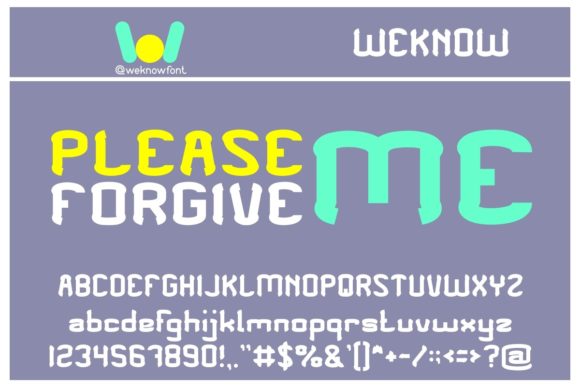
Introducing the Please Forgive Me Font-A Redemption Masterpiece for Your Digital Creations
In the realm of display fonts, allow us to present the Please Forgive Me Font - a dynamic and bold creation that will transform your digital projects into masterpieces. Crafted by the design wizards at weknow, this font oozes attitude and style, ready to elevate your projects to new heights.
With its captivating curves and sharp edges, the Please Forgive Me Font exudes a sense of edginess that demands attention, making it the ideal choice for those seeking to leave a lasting impact. Whether you're crafting eye-catching website content, captivating social media graphics, or unique branding materials, this font will be your trusty companion, turning your ideas into unforgettable visual experiences.
Unleash Your Creativity with Endless Design Possibilities
The Please Forgive Me Font is more than just a collection of letters and symbols; it's a gateway to a world of creative possibilities. Its versatility knows no bounds, making it a perfect fit for a wide range of projects.
Whip up stunning cards that convey heartfelt messages, create unforgettable logos that reflect your brand's personality, design labels that exude sophistication, or let your imagination run wild as you envision countless other projects where this font will shine. The Please Forgive Me Font is your blank canvas, ready to be painted with your creative vision.
Step into a World of Unforgettable Digital Experiences
The Please Forgive Me Font is not just a font; it's a journey into a world where your digital creations come to life. As you weave your words and designs together, this font will infuse your projects with a captivating aura that will leave your audience spellbound.
Imagine your website content leaping off the screen, demanding attention with its bold and striking presence. Picture your social media posts igniting conversations, as your followers are mesmerized by the font's unique charm. Envision your branding materials standing out from the crowd, leaving an indelible mark on potential customers. With the Please Forgive Me Font, you'll create digital experiences that resonate with your audience, forging connections that last.